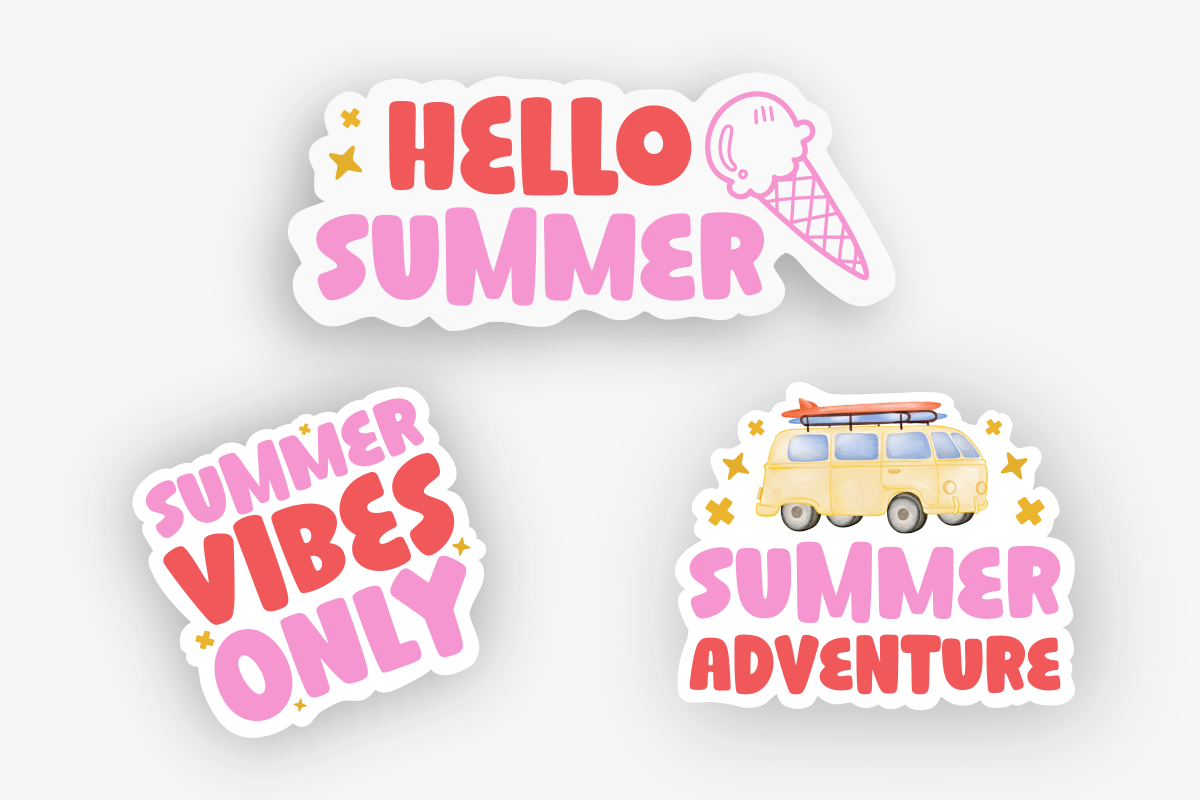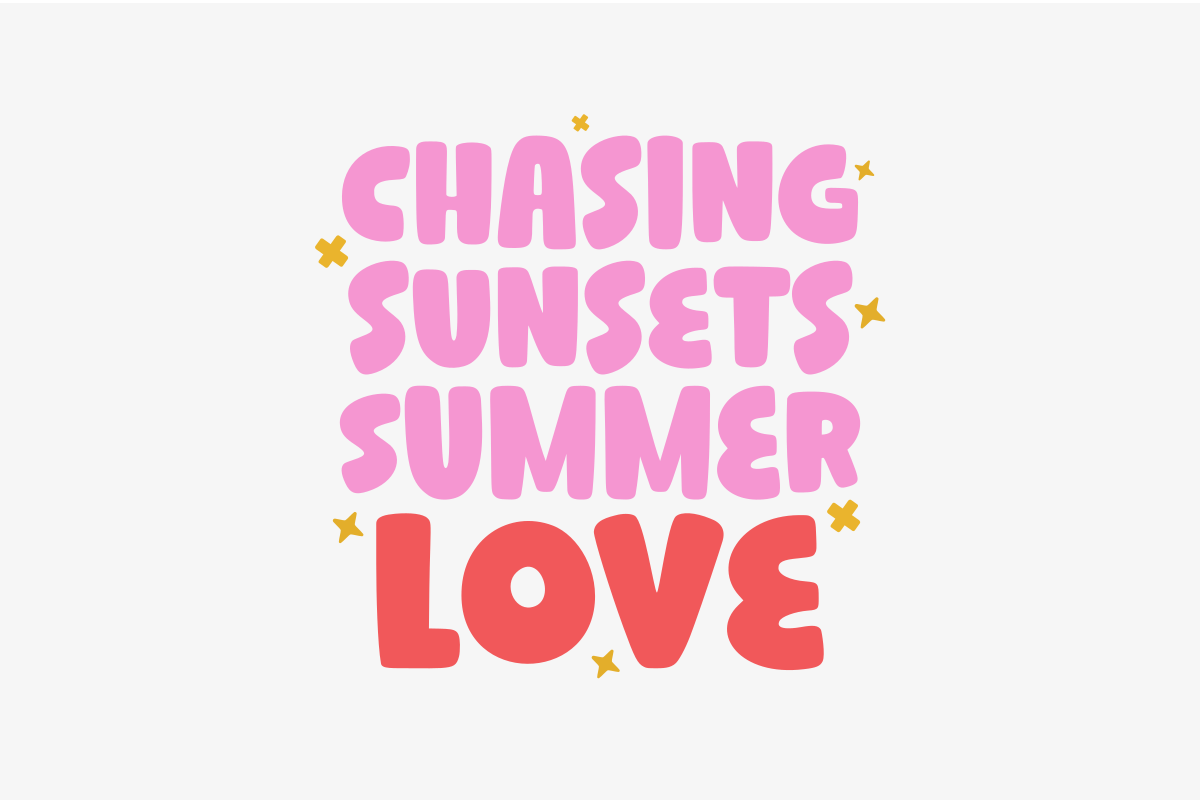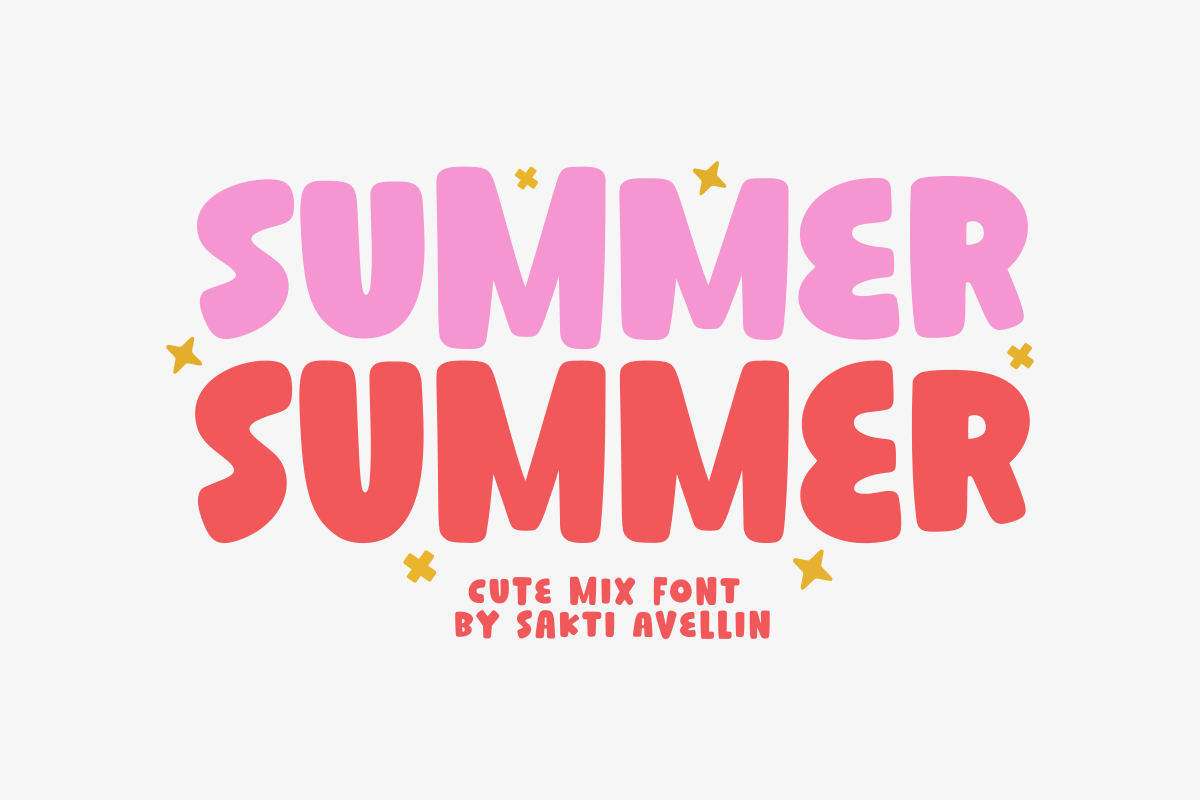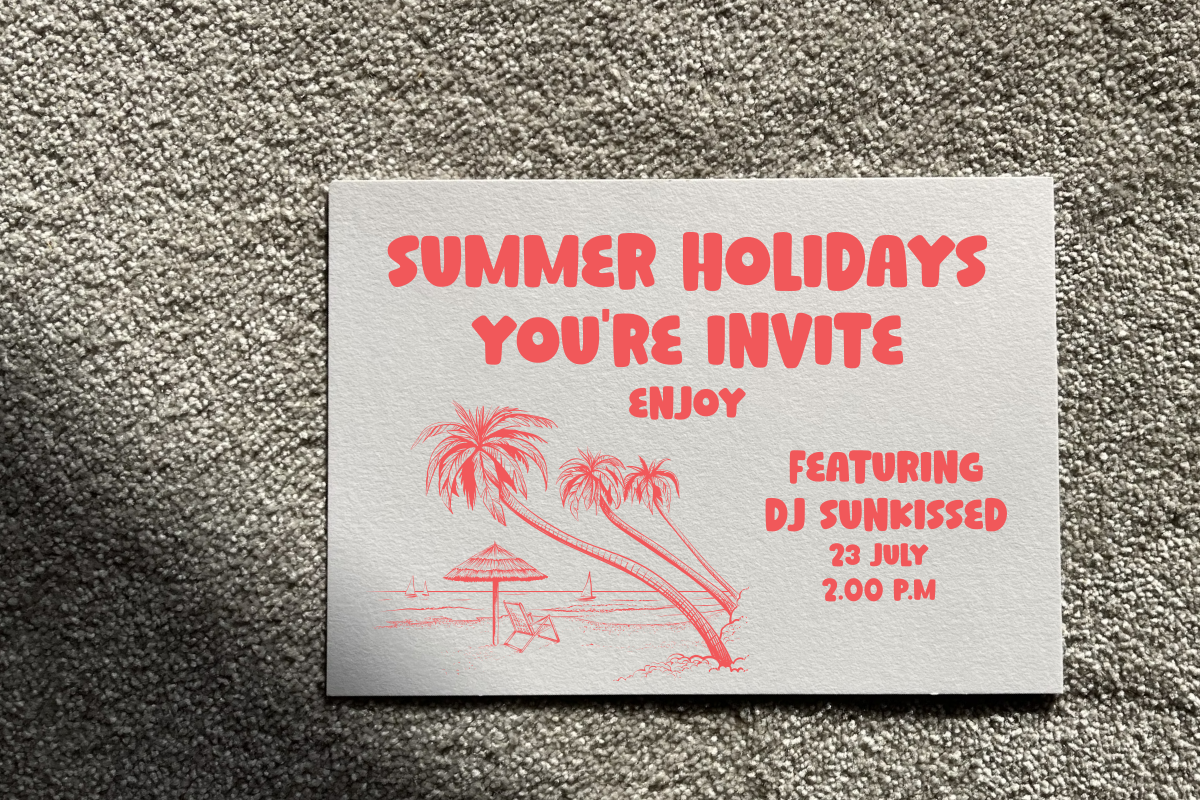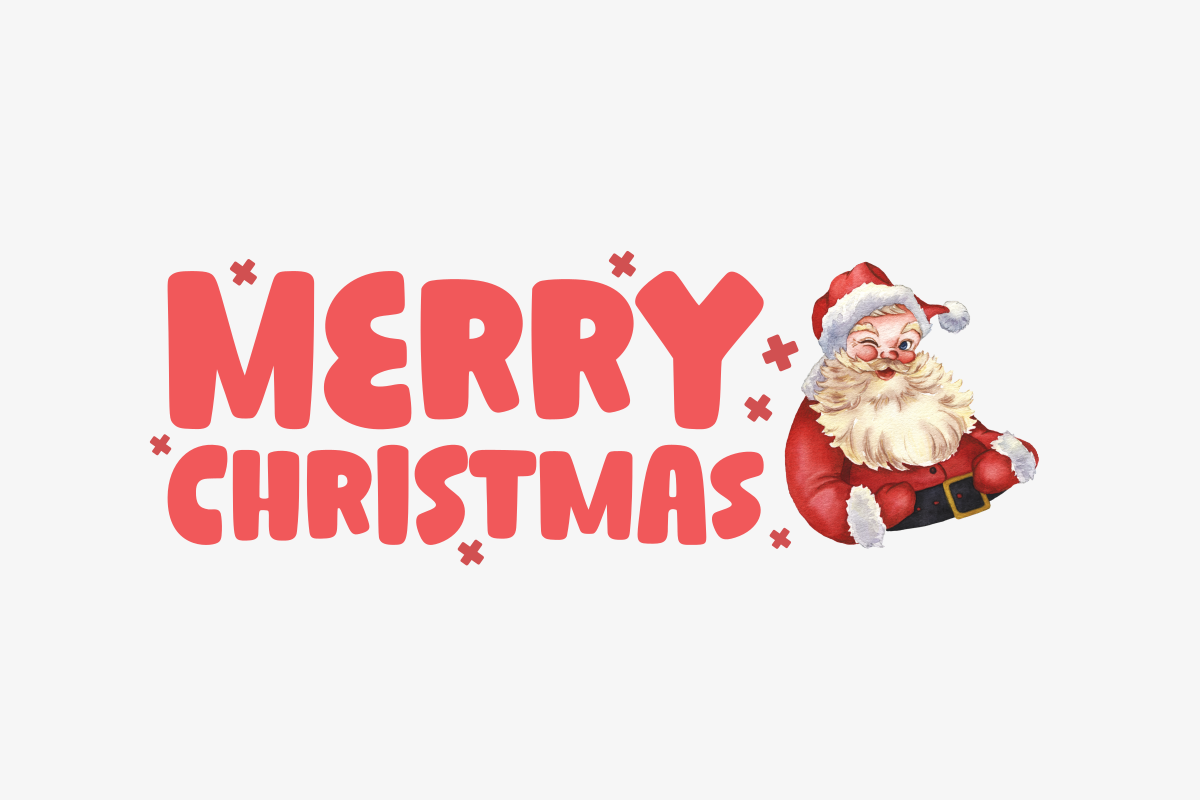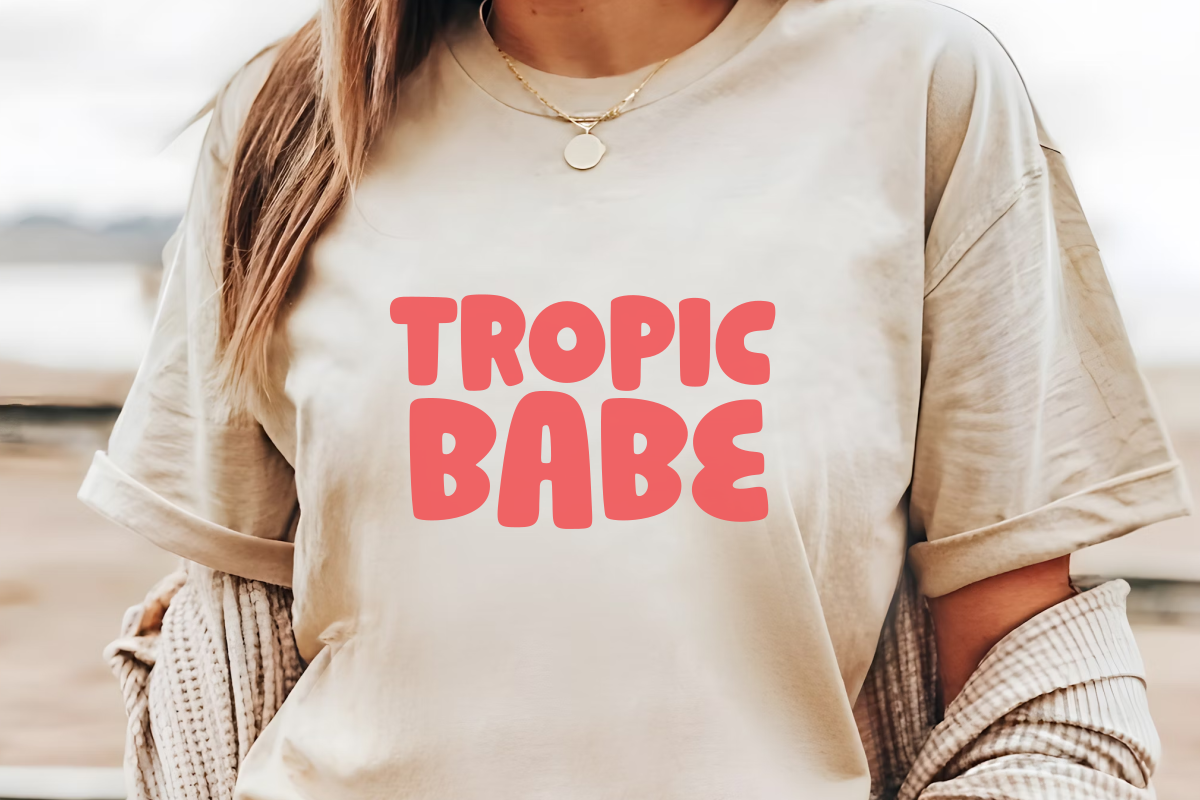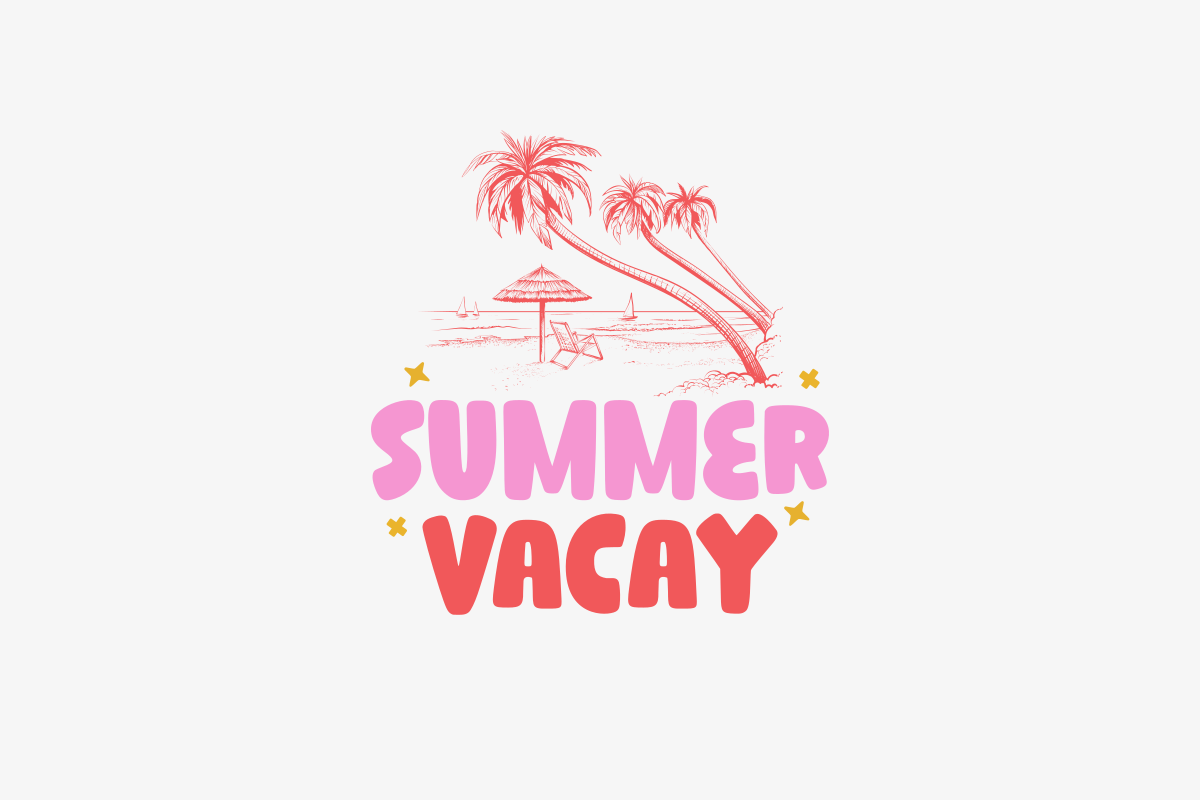
Summer - Cute Mix Font
Summer is a vibrant and cheerful cute mix font designed to infuse your projects with sunny, energetic vibes. This unique display font features thick, rounded, chunky letters perfect for grabbing attention. It is ideal for summer branding, beach party invitations, engaging kids' apparel, vibrant social media posts, and any design related to travel or vacation. Its playful, friendly style makes it a powerful headline font for posters, packaging, and t-shirt designs. Use this modern bouncy typeface to give your creative work a truly joyful and captivating aesthetic!